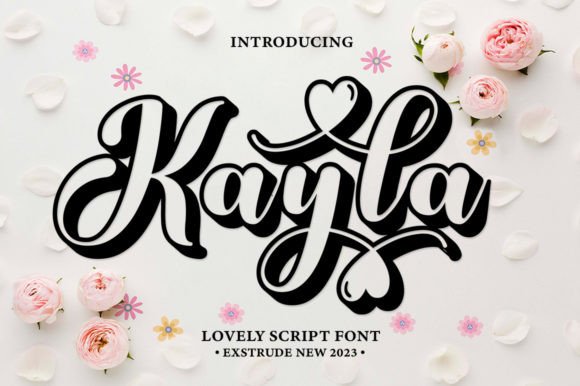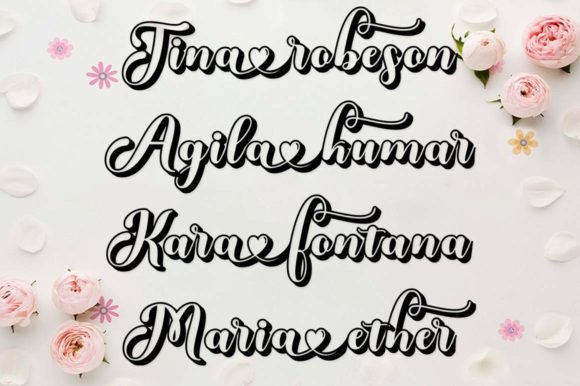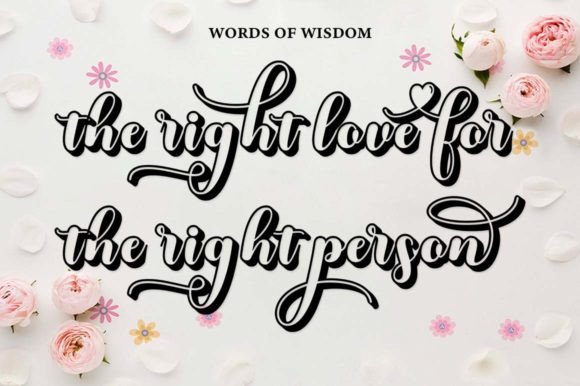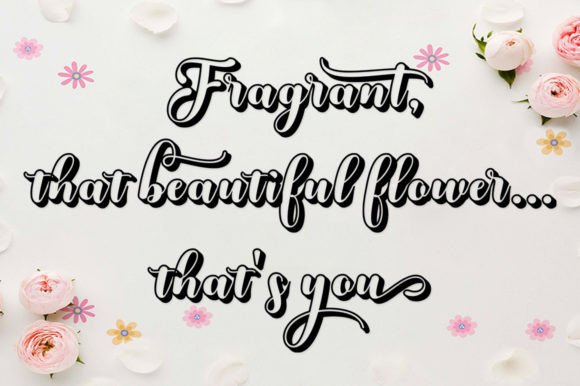
Kayla Exstrude Font
About the Kayla Exstrude Font
Get ready to be inspired by Kayla Exstrude Font, a fresh and dynamic typeface for modern creators. Kayla Exstrude is a different vintage-style handwritten font. Use it to add a special retro touch to any design idea! It is perfect for logos, branding, invitations, stationery, wedding designs, social media posts, and more!
Kayla Extrude’s playful, slightly quirky personality makes it ideal for projects requiring a vintage yet approachable feel. It excels in headlines, short text blocks on posters or social media, and branding applications where a handcrafted, nostalgic aesthetic is desired. Avoid using it for large bodies of text or UI elements; its unique character would hinder readability in such contexts.
Pairing Kayla Extrude with a clean sans-serif like Montserrat or Open Sans provides a strong contrast, balancing its hand-drawn quality with modern clarity. For a more luxurious feel, consider pairing it with a classic serif font such as Garamond or Didot. These pairings create visual harmony, allowing Kayla Extrude to shine as a distinctive design element.
Kayla Exstrude Font Usage Examples
Kayla Exstrude Font Example